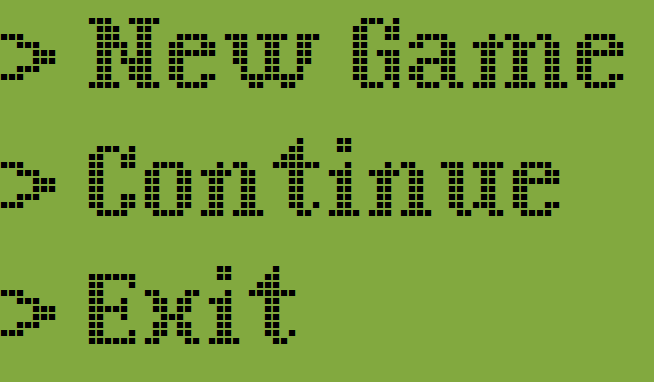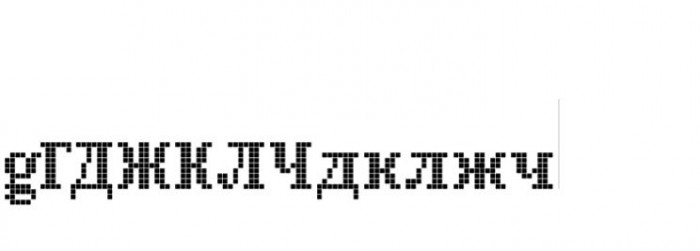
@Baljinima Batomunkuev (MadSheep3) - Very nice.  Is this from a particular game or based on a particular font?
@Goatmeal It's just a simple MS Paint, man.
@MadSheep3 I think Goatmeal is asking whether the FontStruction is based on a font from a game or a display. I was wondering that too.
@meek @Goatmeal Oh yeah? Sorry for the misunderstanding. I was inspired by the font in the Nokia 1208. These cheap phones for those who are used only for calls and messages, or do not understand in the modern technologies.
Here is an example font:
This looks good. I have never scrutinised the construction of the fonts on a mobile phone. Great idea, it made me more aware :) 10/10
Congratulations! FontStruct Staff have deemed your FontStruction worthy of special mention. “Monochromaticism Serif” is now a Top Pick.
Added support for Latin-1 Supplement!
Much nostalgia, nice one dude!
Added support for Basic Cyrillic!
Great work. Congratulations to the TP. 10/10
Added support for Latin Extended-A!
Added support for Latin Extended-B!
So well done  .......
Added support for IPA Extensions!
Мои предложения.
Thank you, that made me remember the font!
Спасибо, что заставил вспомнить о шрифте!